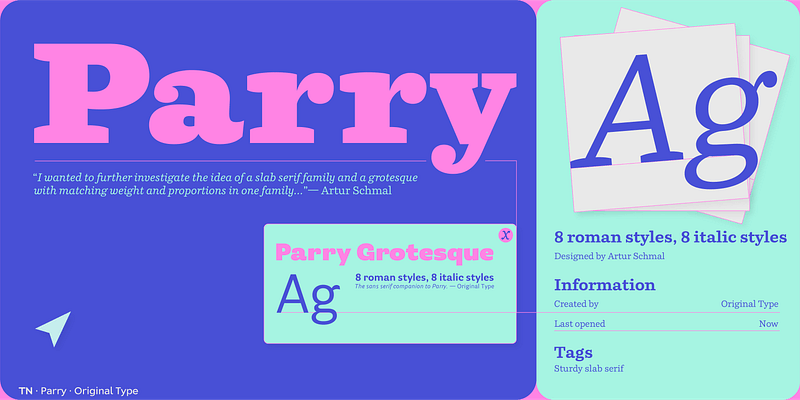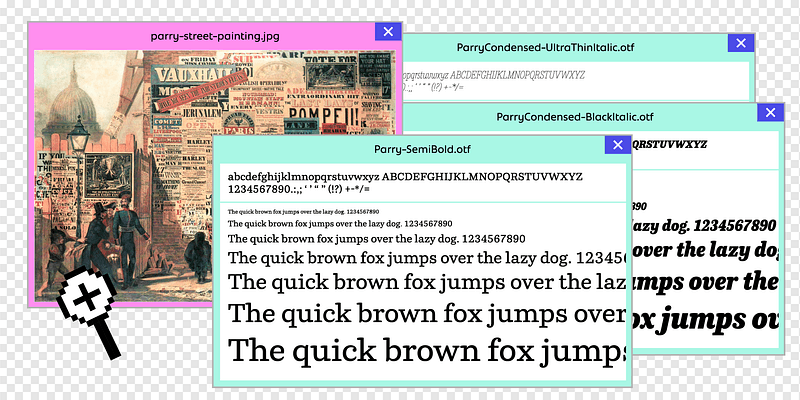
Parry has its roots in the robust slab serif and sans serif typefaces that appeared in the Victorian age. It is not a revival though, and its aesthetics make it truly a contemporary typeface. The soft curves and quirky serifs combine with sharp cut stroke terminals to produce a text image that is softer than the rigid nature of most slab serifs. Since its release, Parry and Parry Grotesque have proven to be extremely versatile typefaces. Coming in regular and condensed widths, it is a comfortable and reliable choice for a wide range of applications. From corporate identities to subtitle book typography, from magazines to billboard-sized advertising campaigns.